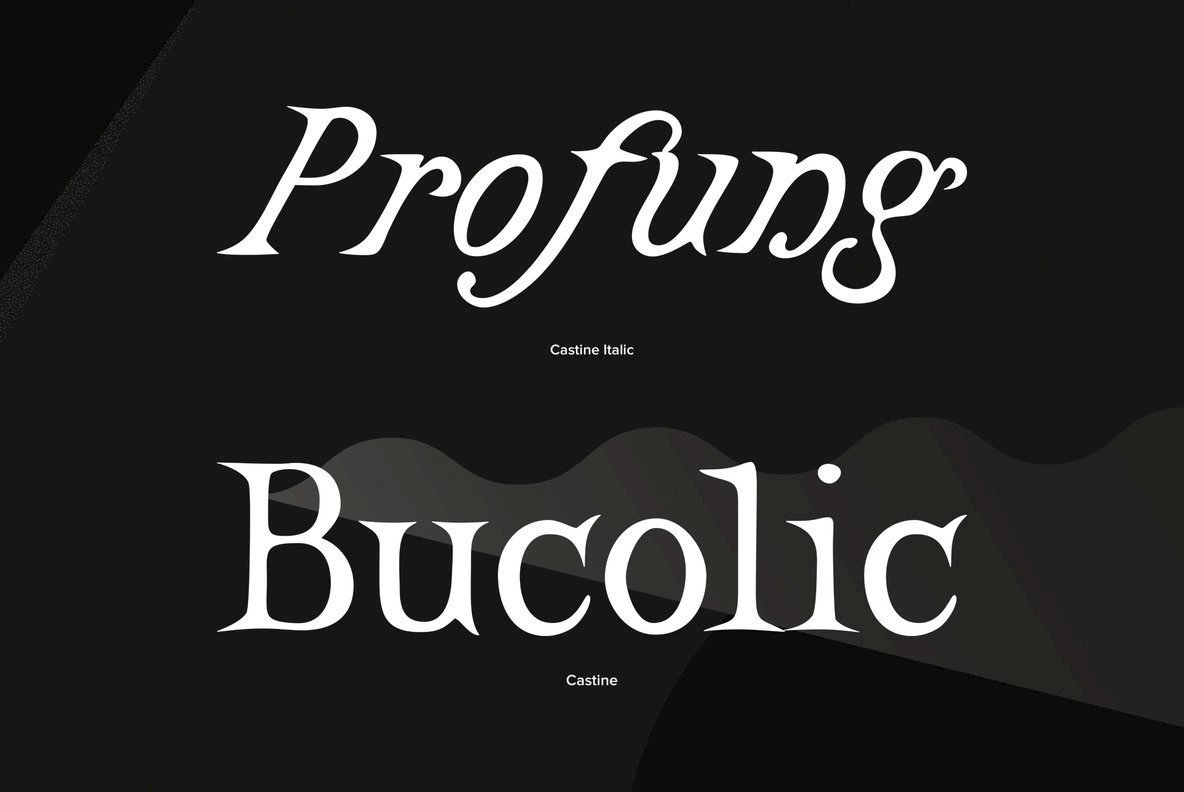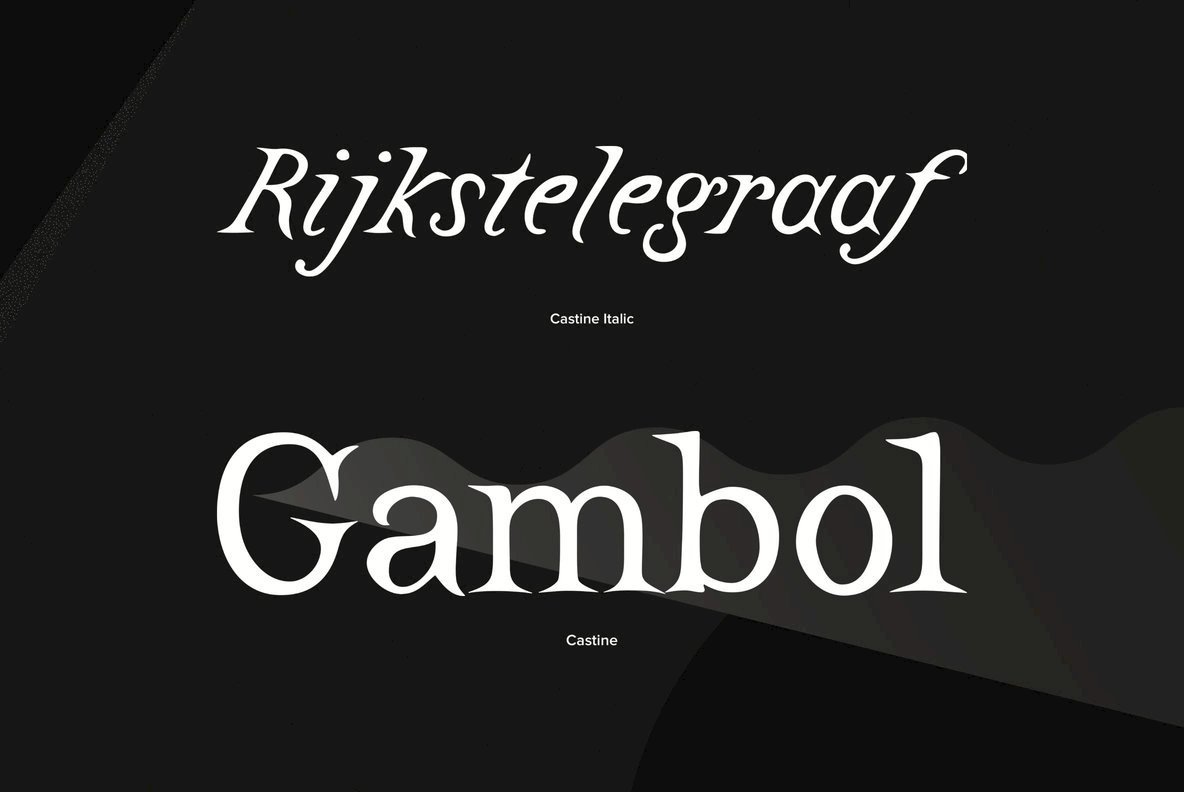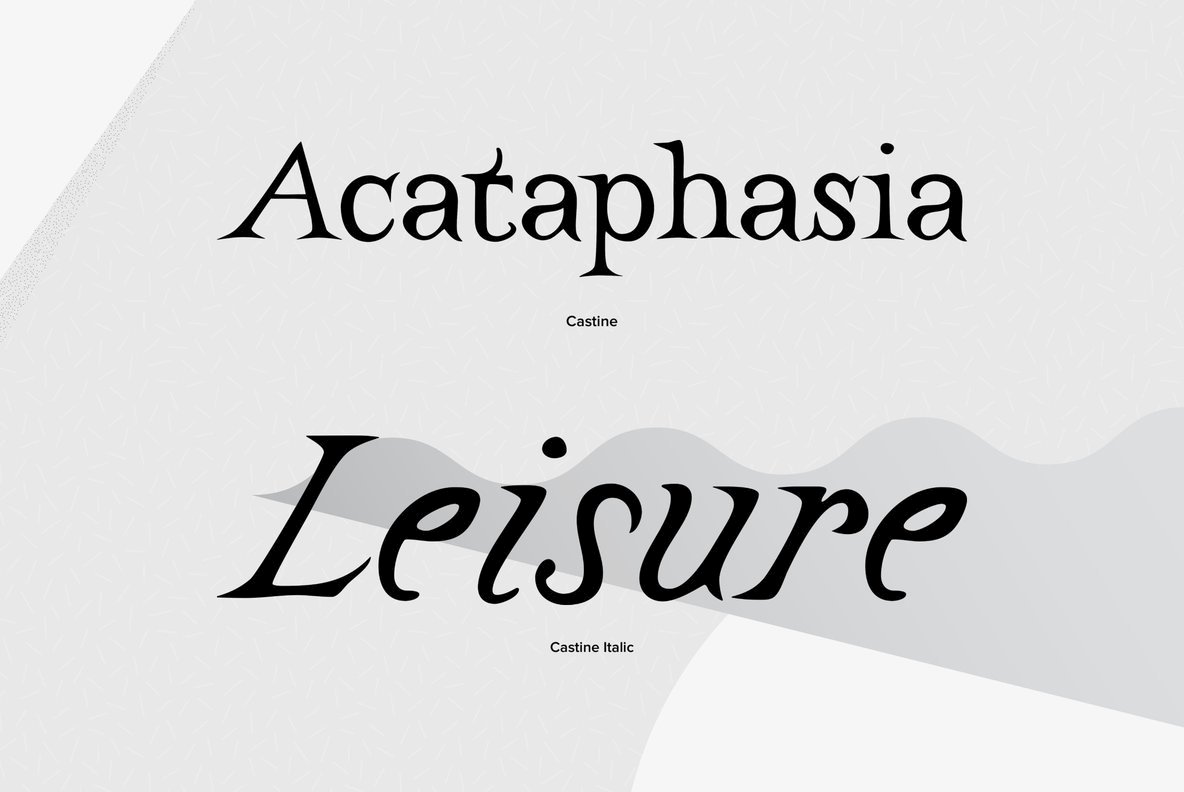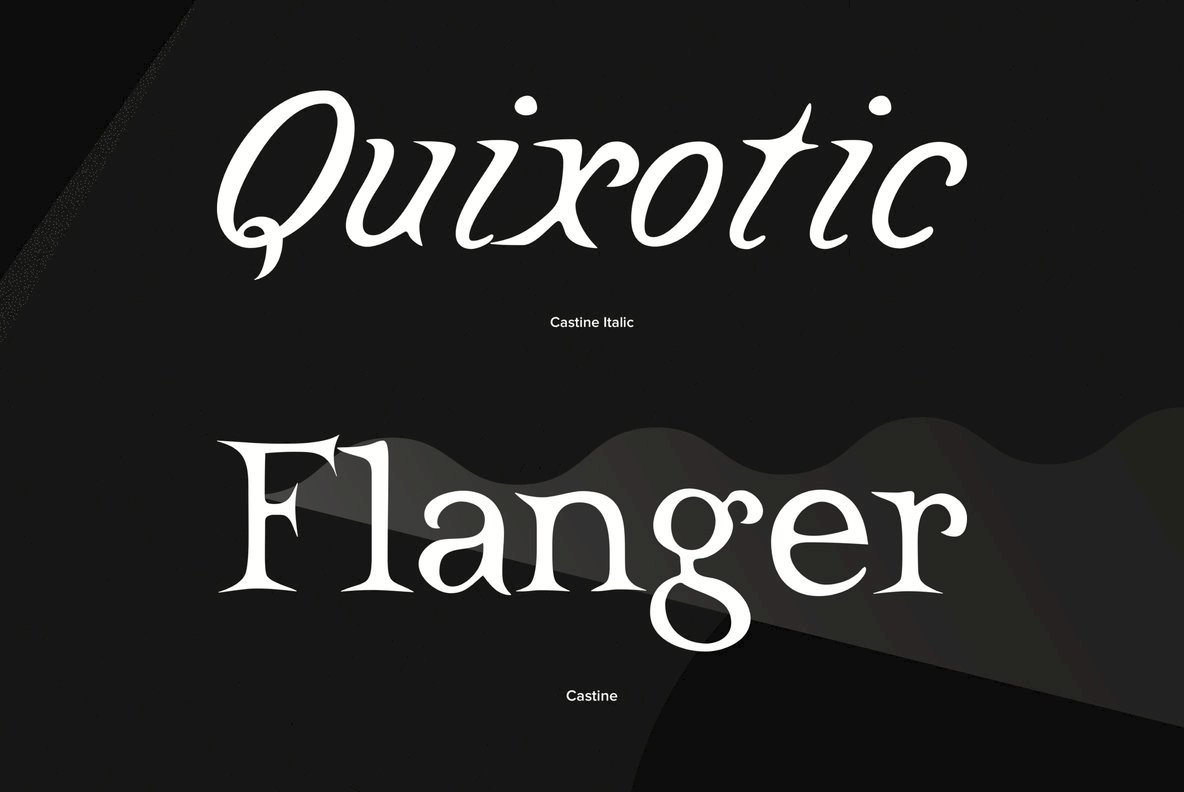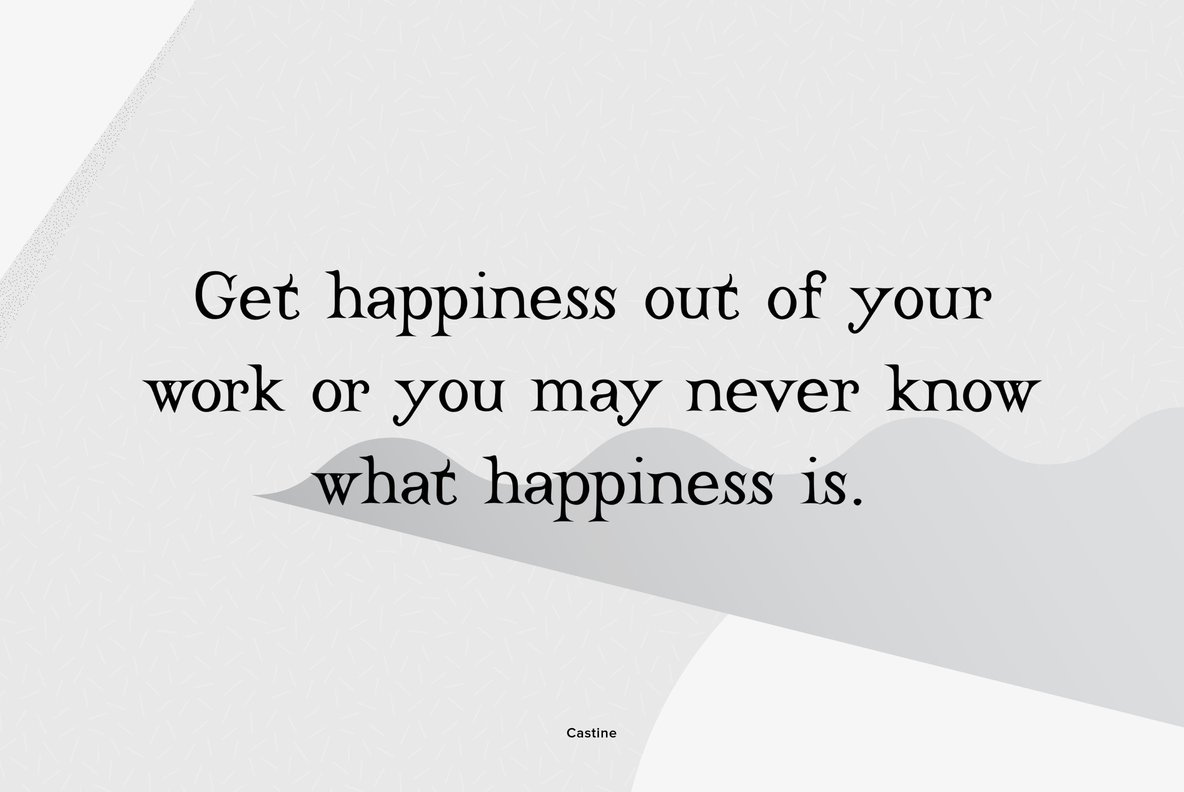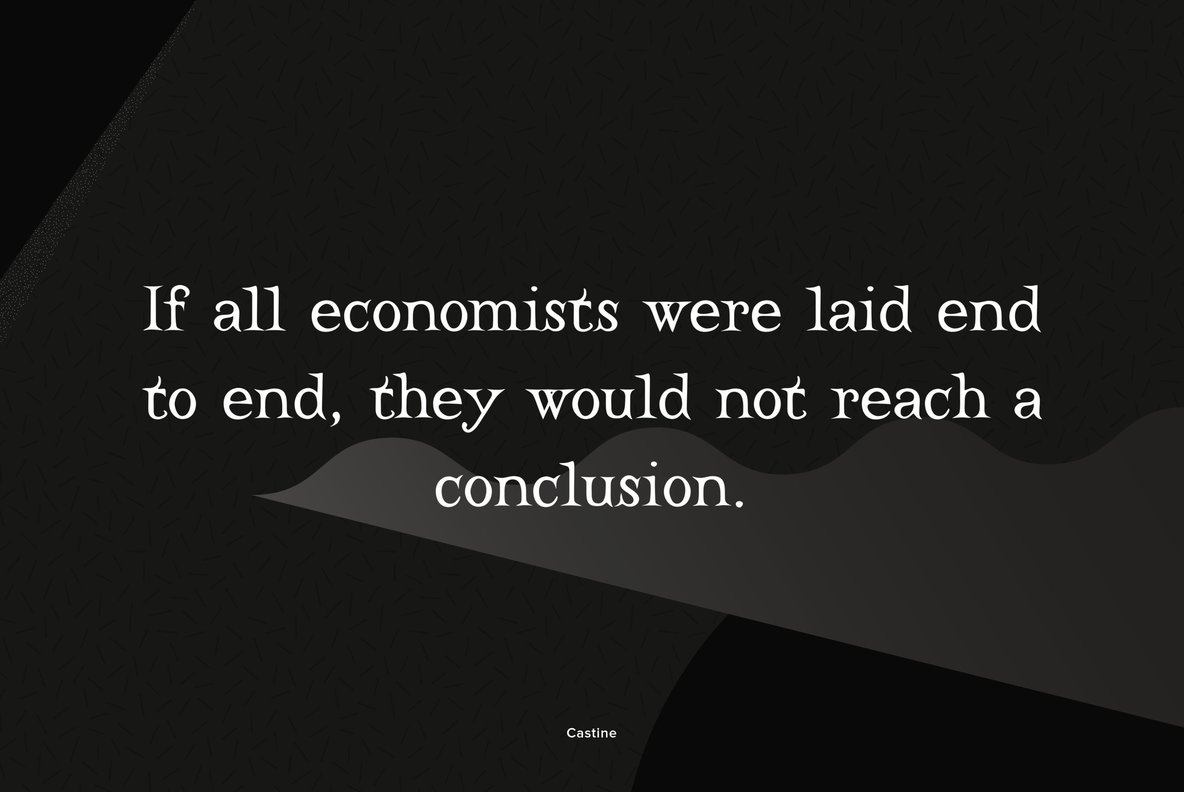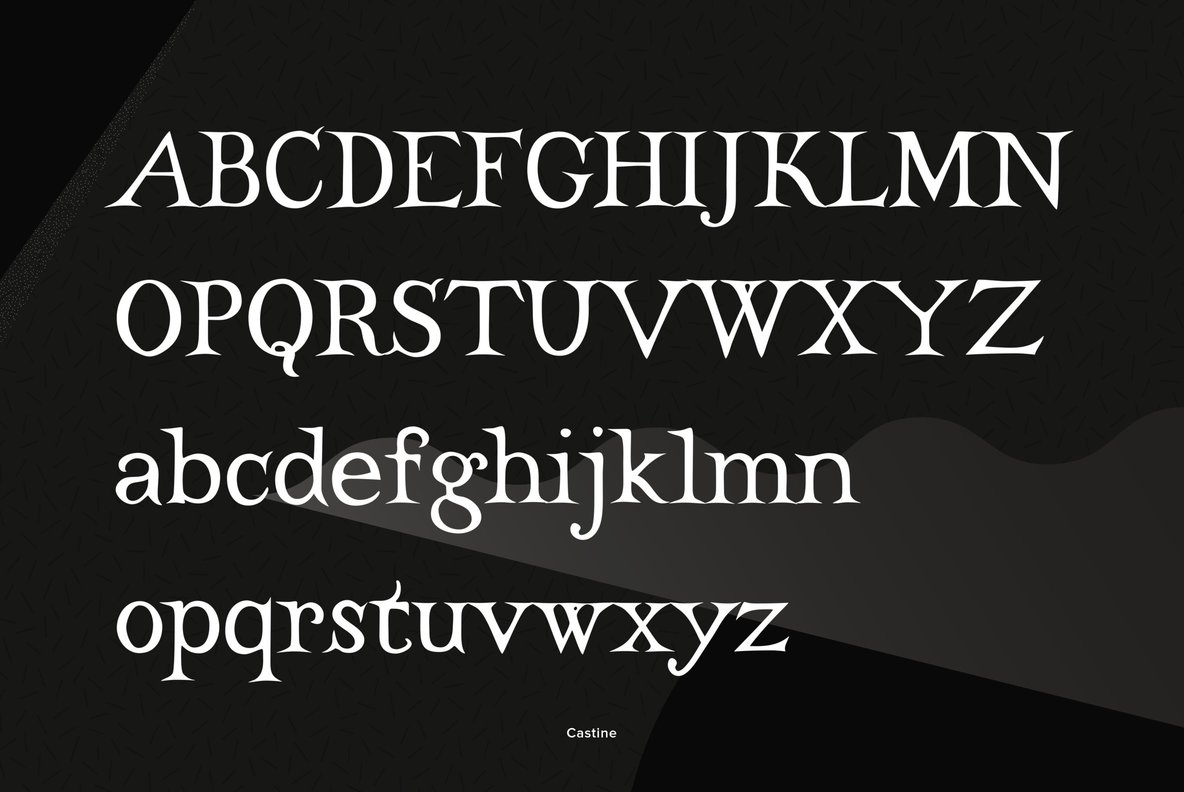
Castine Font
Castine
Castine Italic
Castine gets its name from a small coastal Maine town with a seagoing heritage and long history. The town has an old cemetery with a few 200-plus-year-old headstones whose distinctive carved lettering inspired the typeface that shares its name.
Castine’s long, sharp serifs and slight unevenness recall old, simpler times when character meant more than precision. Spaced loosely in display situations, it has a broken-in feel, like comfortable shoes. It’s also impressively legible at smaller point sizes.
Castine has two styles, a roman and a true italic. Each has a full complement of “long s” and other ligatures, lining and old-style figures, some winged skull ornaments, and full support for Central/Eastern European languages.